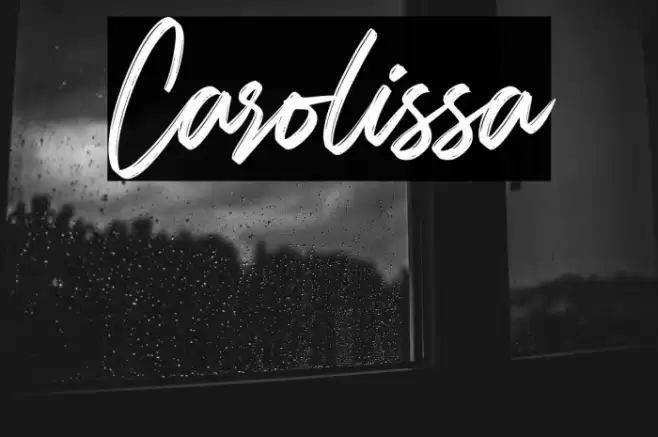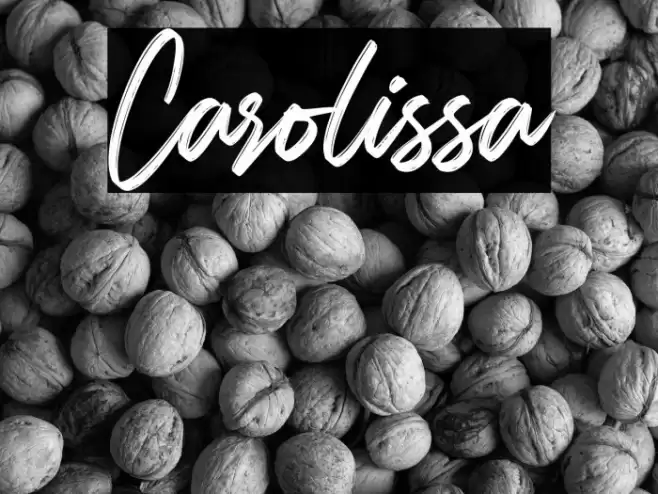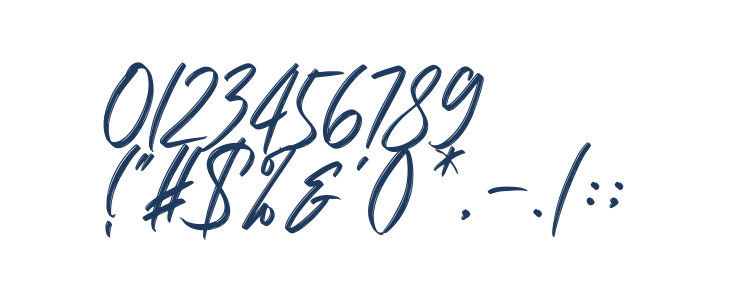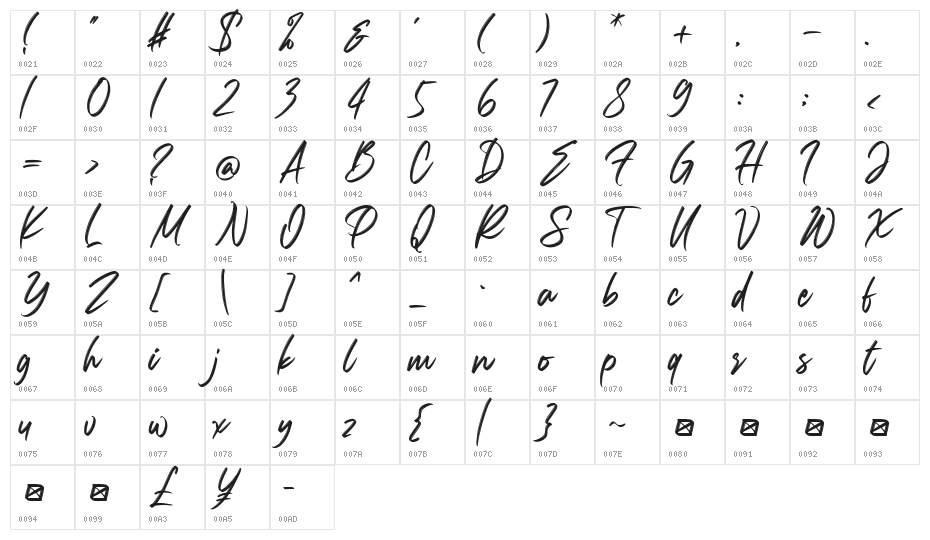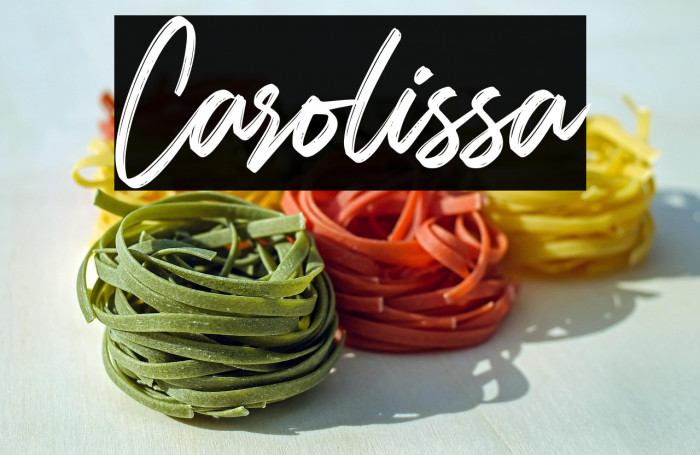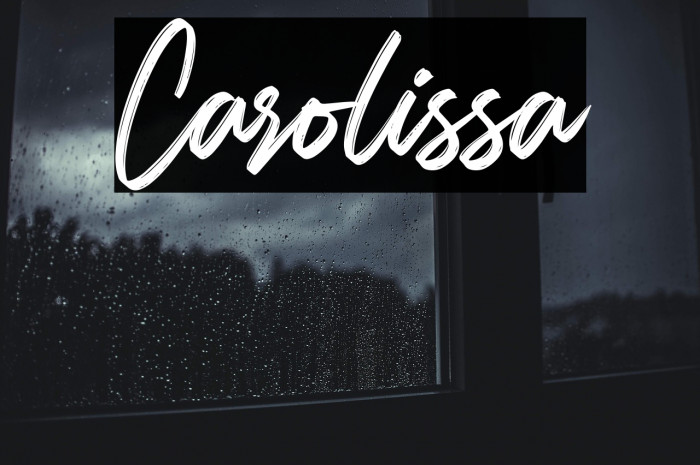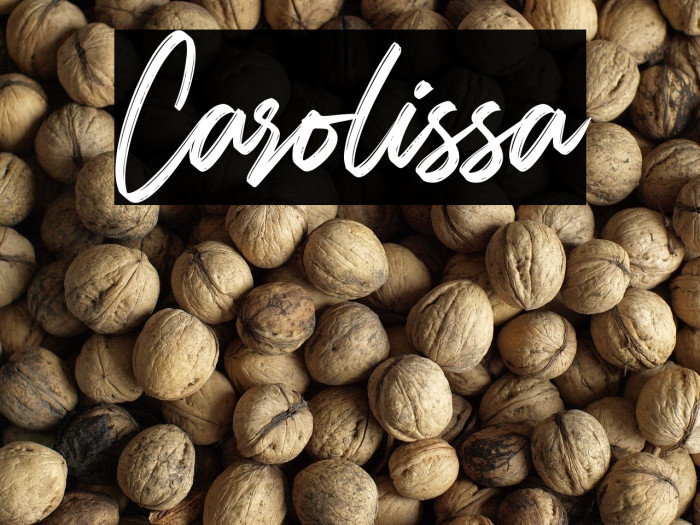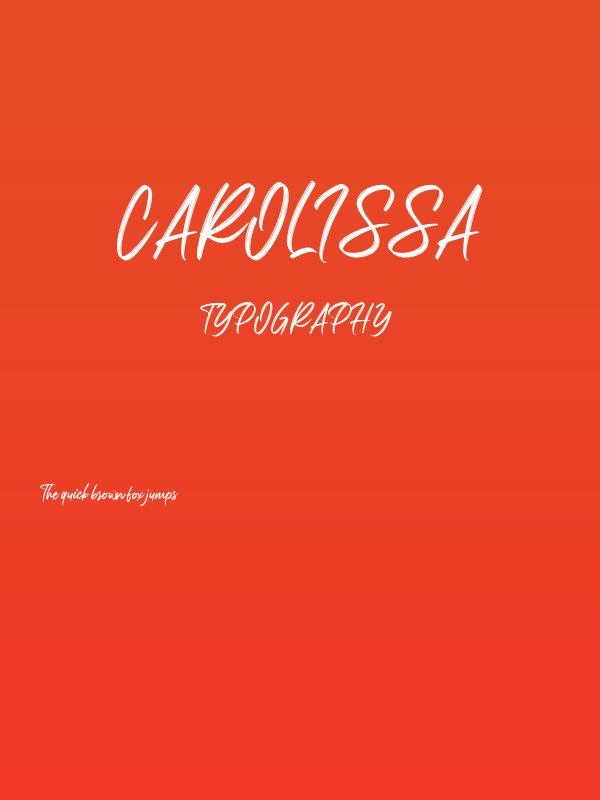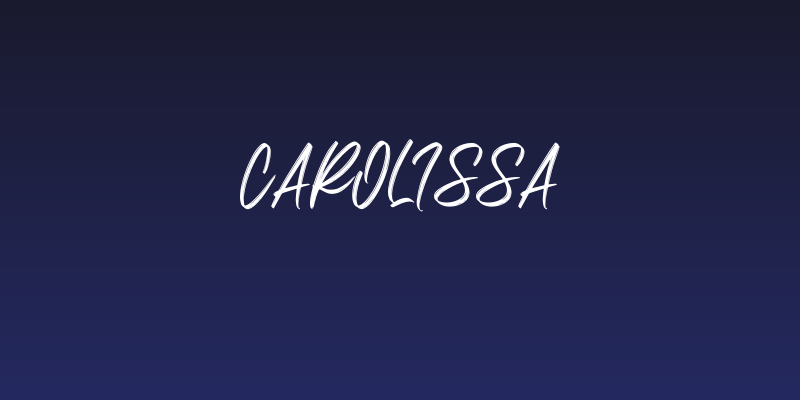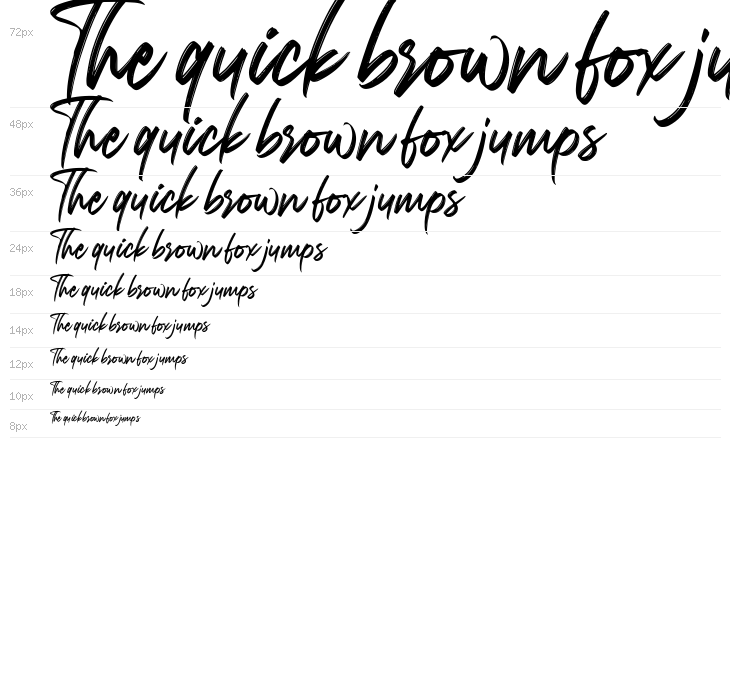
Carolissa Font
Carolissa Description
This font features a dynamic and expressive script style, characterized by its fluid and energetic strokes. The letters are connected in a cursive manner, giving it a handwritten feel. The uppercase letters are bold and slightly slanted, while the lowercase letters maintain a consistent flow, enhancing readability. The numerals and special characters complement the overall aesthetic, maintaining the same lively and artistic flair. This font exudes a sense of creativity and movement, making it ideal for projects that require a personal touch.
A lively and expressive script font with a handwritten feel from Regular fonts.
- Font: Carolissa
- Proposed Projects: Ideal for wedding invitations, greeting cards, branding, and artistic projects that require a personal and creative touch.
- Use Case: Logos, Headlines, Invitations